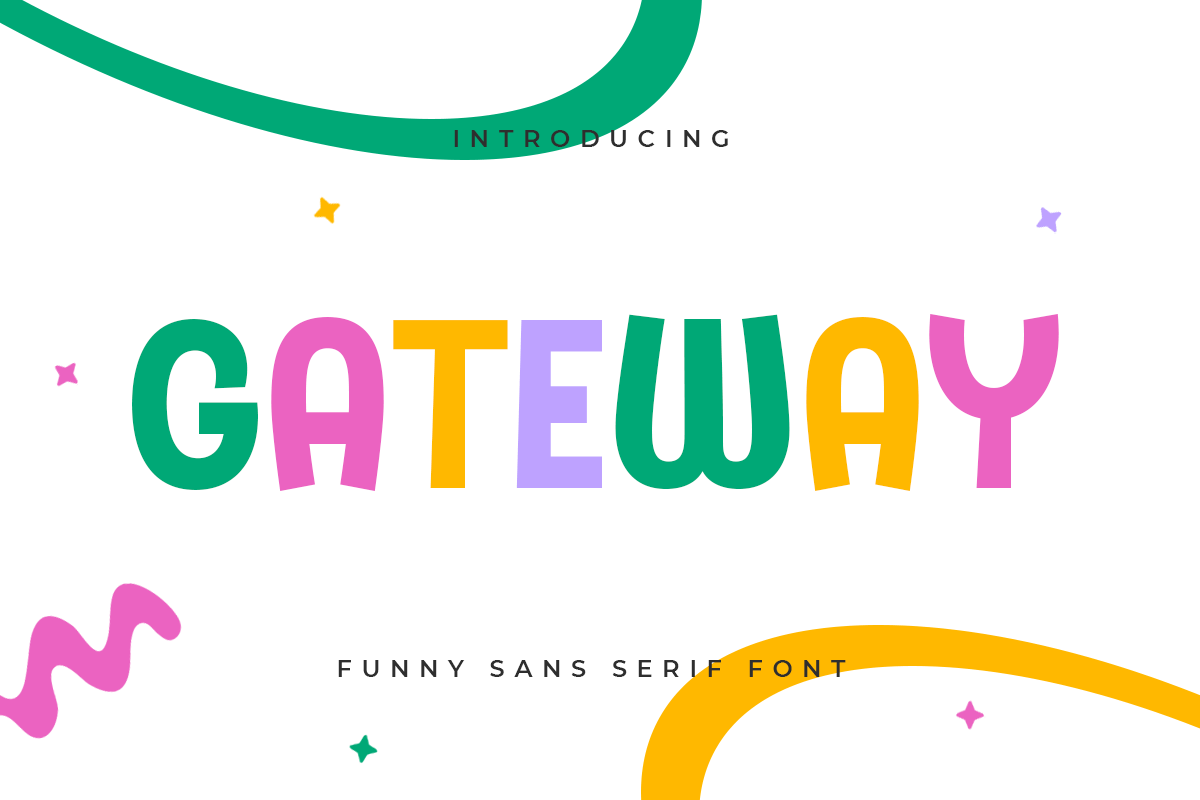
Gateway
-Funny Sans Serif Font
Gateway
Gateway is A Modern Kids and Child Game Font. This font specially crafted for your design projects such as cute logo, unique poster, modern for t-shirt designs, product packaging, merchandise, pillow print and so many more with easy to use but unique results are so cute.
Enjoy to Design any your needs with cute, lovely, and childish feel.